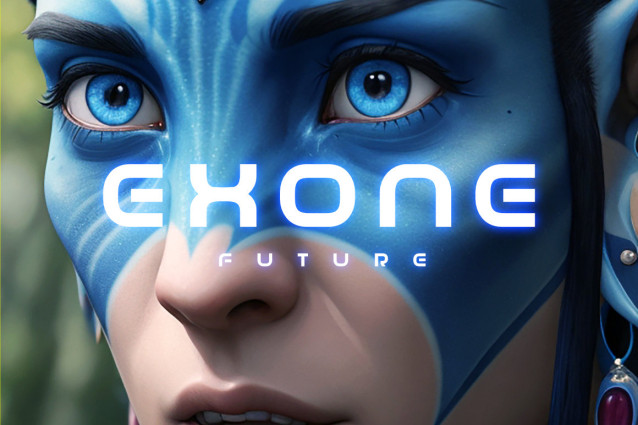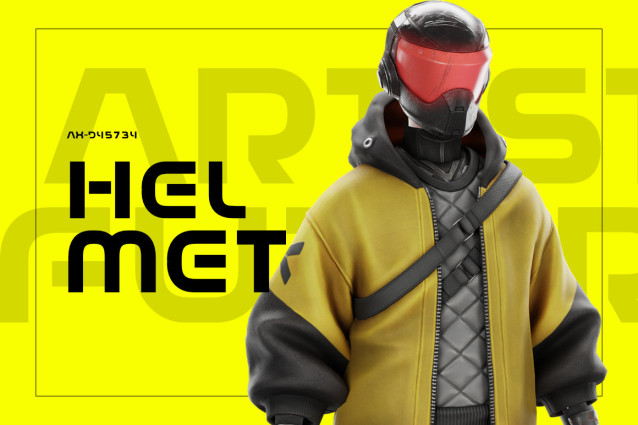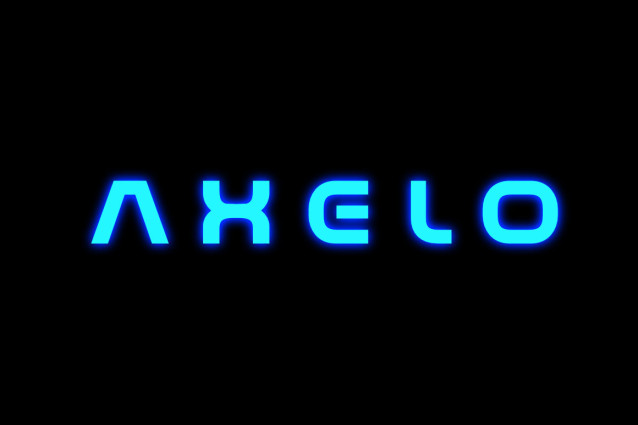
Monoo Logo Font
Monoo Logo Font is a futuristic font style with sophisticated, modern and minimalist allcaps characters. Its futuristic aesthetics bring a whole new dimension to your designs, making them stand out. Whether you’re working on a website, poster, logo, or any other project, this font adds that extra touch of innovation and sophistication.